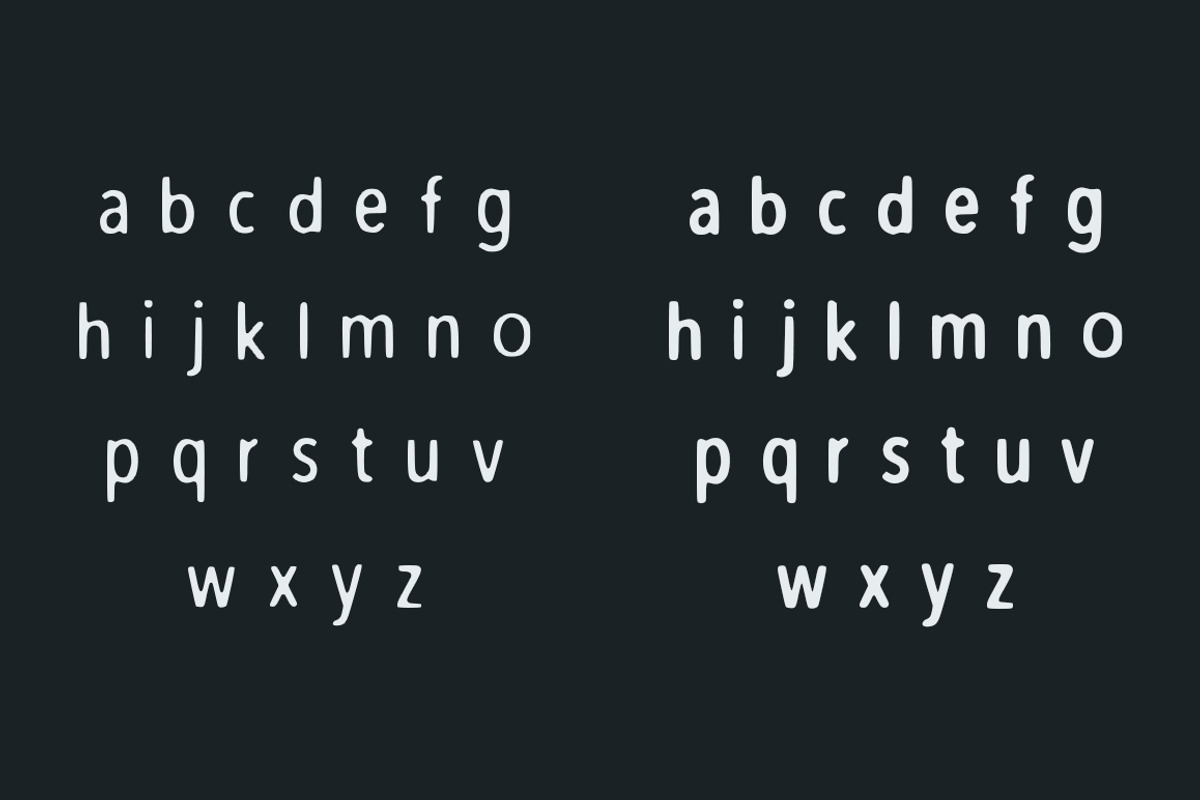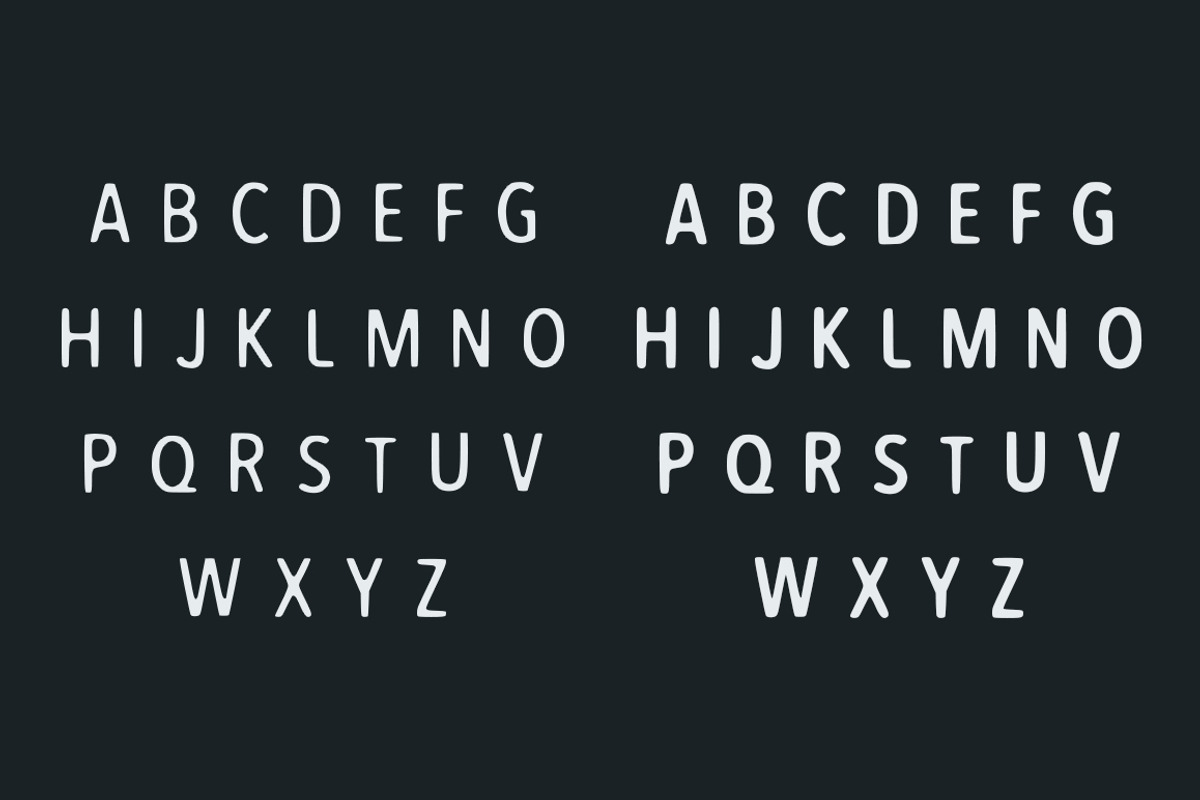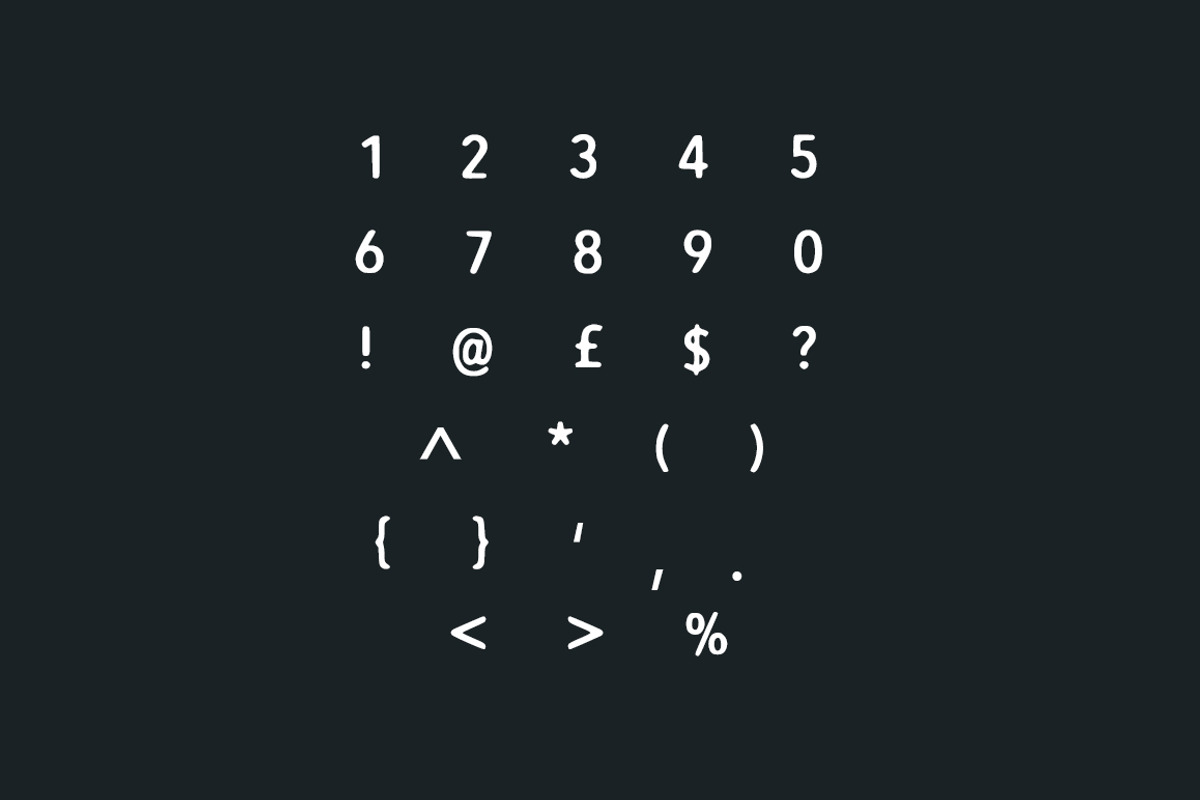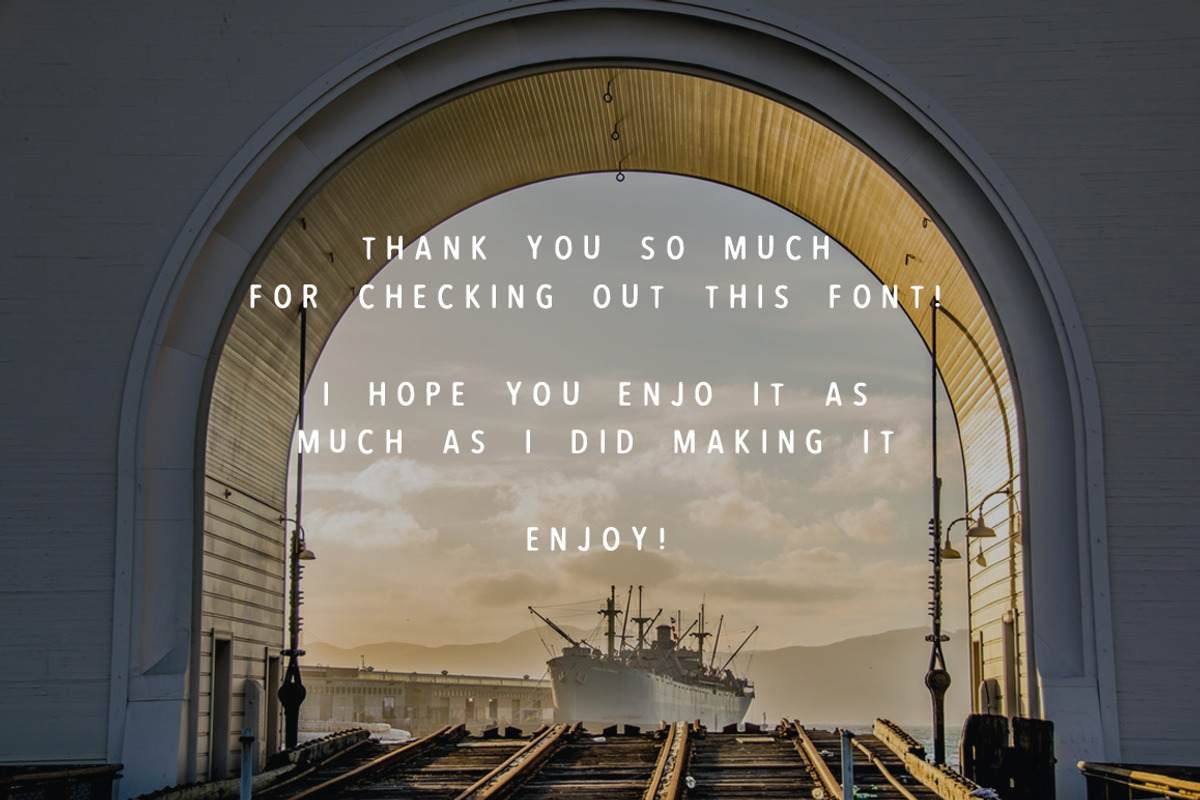
Francisco - NOW HALF PRICE! by The Font Shack is a font selected for branding, posters, packaging, typography.
- Francisco Medium
Why Francisco - NOW HALF PRICE! is worth a look
Francisco - NOW HALF PRICE! by The Font Shack fits naturally into Branding, posters, packaging, typography.